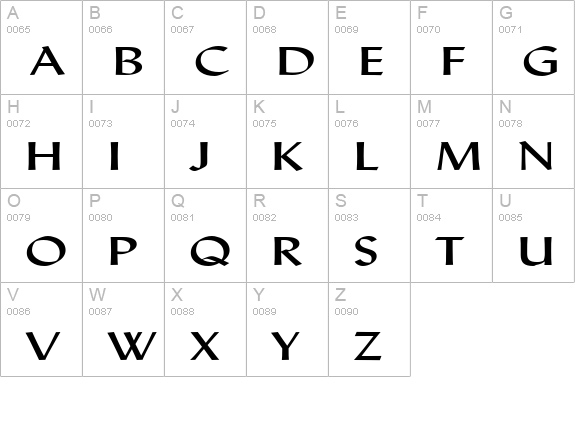
Lynda Extended Normal Font Details
Lynda Extended Normal is the standard, neutral, extended-width variant in the Lynda typeface family \xE2\x80\x94 well suited to general body text, paragraphs, and standard typographic work.
Lynda Extended Normal font is a modern and versatile typeface that exudes elegance and sophistication. With its clean lines and sleek design, this font is perfect for a wide range of design projects, from branding to editorial design and everything in between. The extended character set allows for added versatility, making it suitable for various languages and design needs. Best of all, Lynda Extended Normal font is available for free download at FontsMarket.com. This means you can easily access this stylish font for your projects without any cost. Don't miss out on the opportunity to enhance your designs with this beautiful and timeless typeface. Download Lynda Extended Normal font today and elevate your design game!